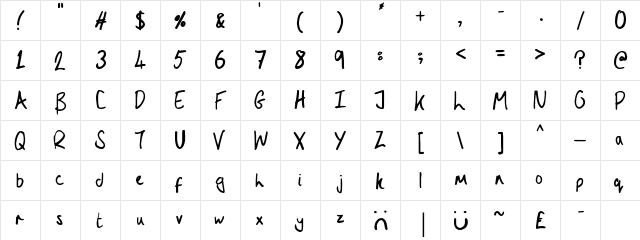
Joe Brooks Hand Regular
Design Context for Joe Brooks Hand Typeface
Joe Brooks Hand flows with the natural rhythm of handwritten lettering, making it ideal for designs that call for warmth and personal expression.
Font Pairing: Combine Joe Brooks Hand with a simple geometric sans for maximum contrast — the tension between flowing curves and clean structure is a classic typographic pairing.
Pro Tip: Pair Joe Brooks Hand with a clean sans-serif for supporting text. The contrast between fluid script and geometric structure creates an elegant typographic hierarchy.